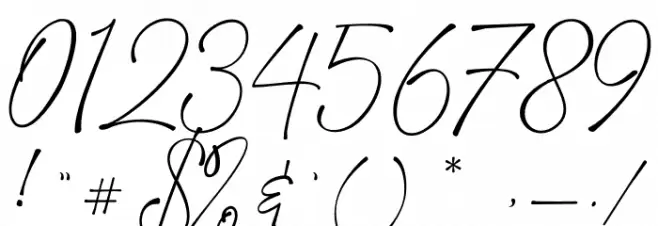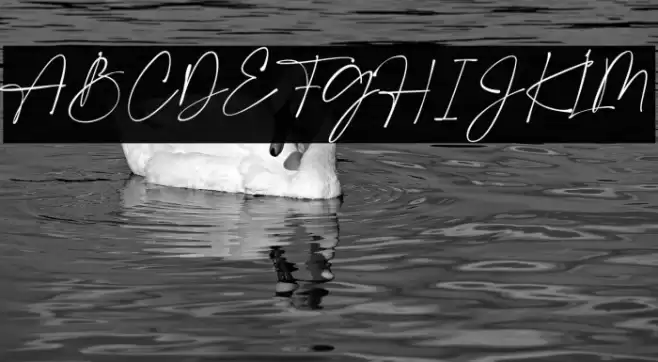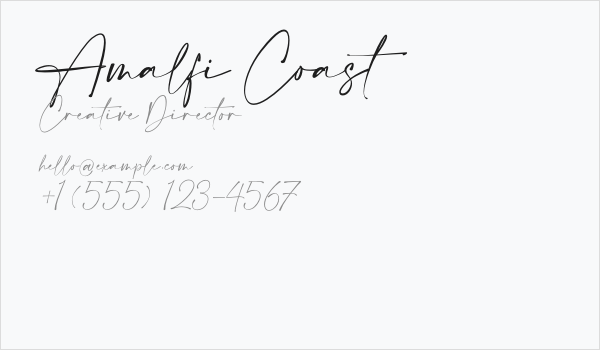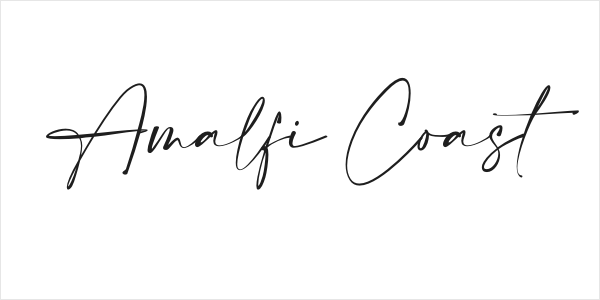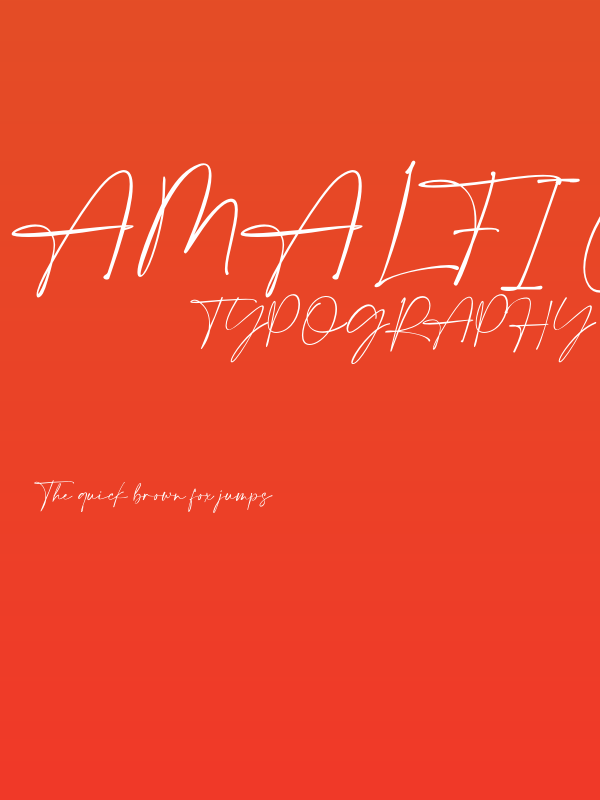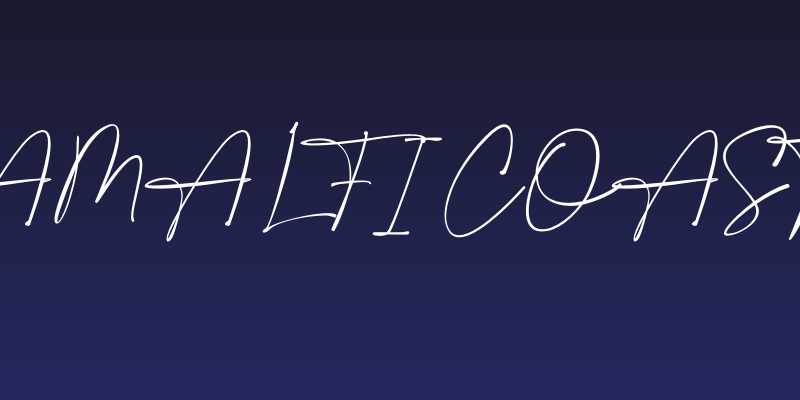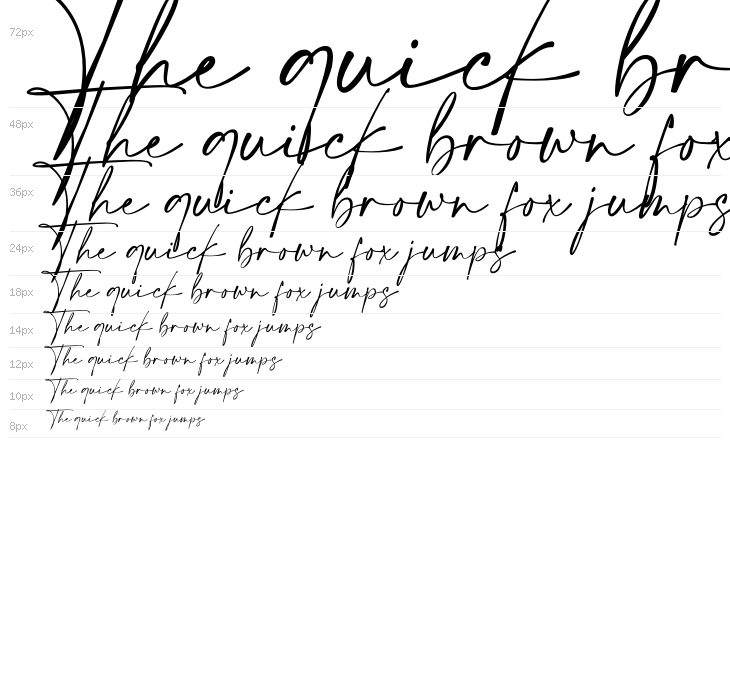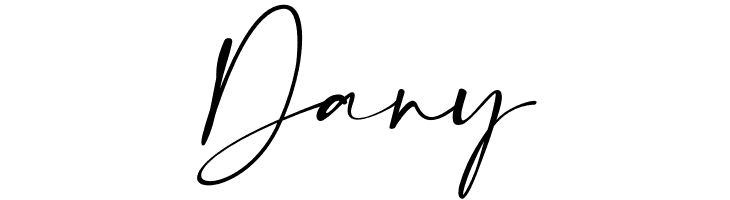
Amalfi Coast Font
Amalfi Coast Description
This elegant script font exudes a sense of fluidity and grace, characterized by its flowing, cursive letterforms. Each character is meticulously crafted, with smooth, sweeping strokes that create a harmonious and connected appearance. The uppercase letters are tall and slender, while the lowercase letters maintain a consistent rhythm, enhancing readability despite the intricate design. The numerals and special characters are equally refined, maintaining the overall aesthetic of the font. This font is perfect for adding a touch of sophistication and style to any project.
| Proposed Projects | Ideal for wedding invitations, elegant branding, personal stationery, and decorative quotes. |